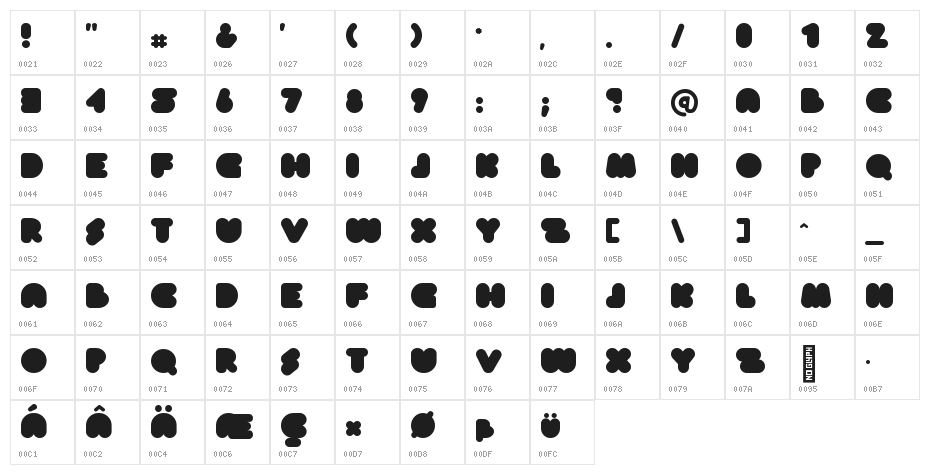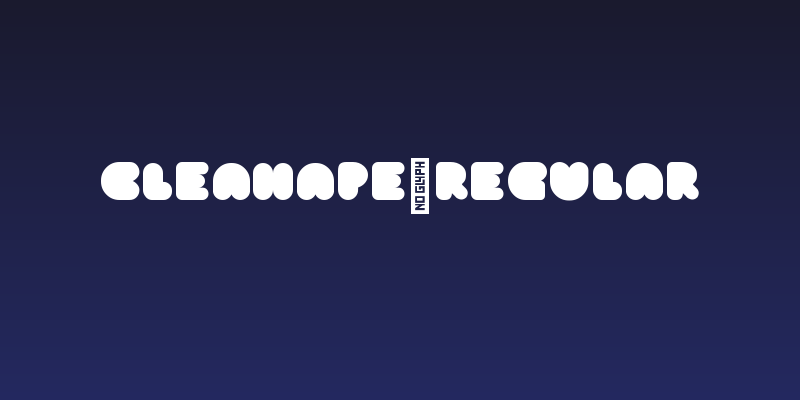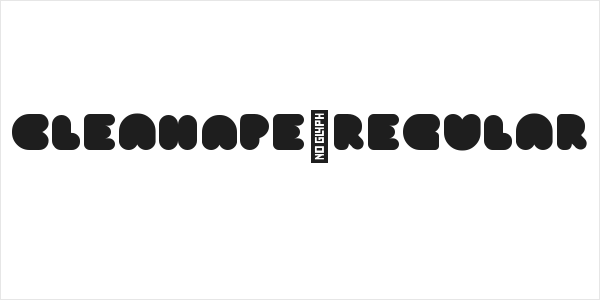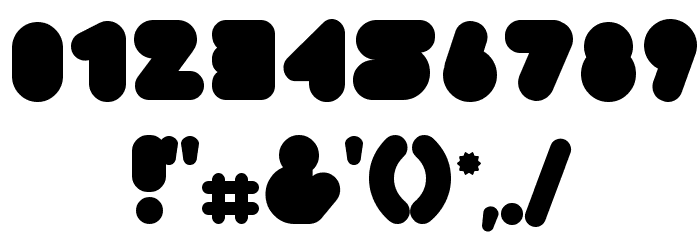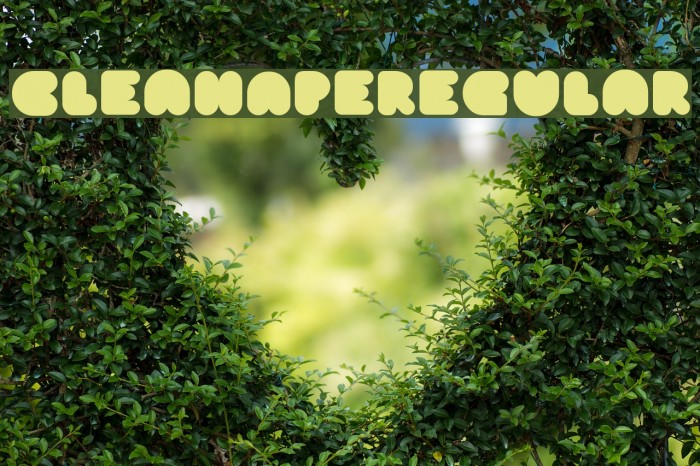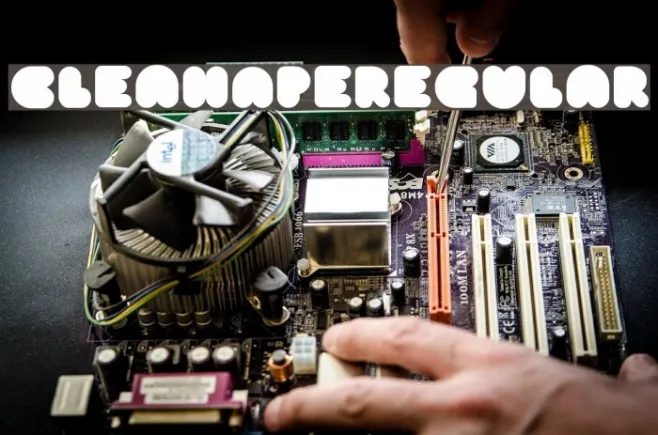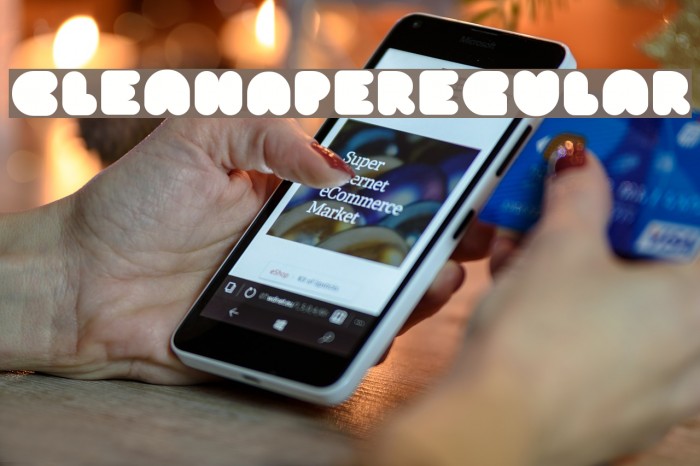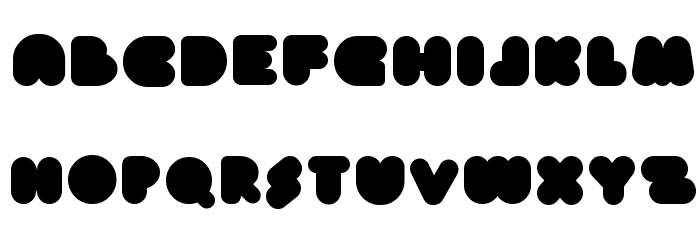
CleanApe-Regular Font
CleanApe-Regular Description
This font features bold, rounded characters with a playful and modern aesthetic. The letters are uniformly thick, creating a strong visual impact. The rounded edges give it a friendly and approachable feel, making it suitable for a variety of creative projects. The numbers and special characters maintain the same bold and rounded style, ensuring consistency across all elements. This font is ideal for designs that require a touch of whimsy and boldness, such as children's books, playful branding, or eye-catching headlines.
| Proposed Projects | Ideal for children's books, playful branding, eye-catching headlines, and creative posters. |